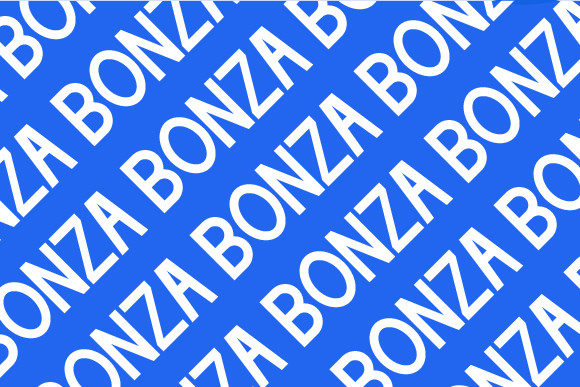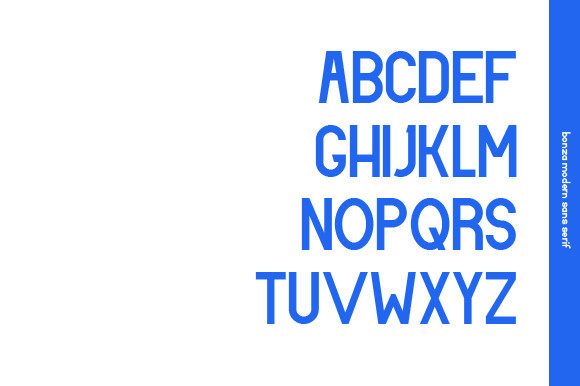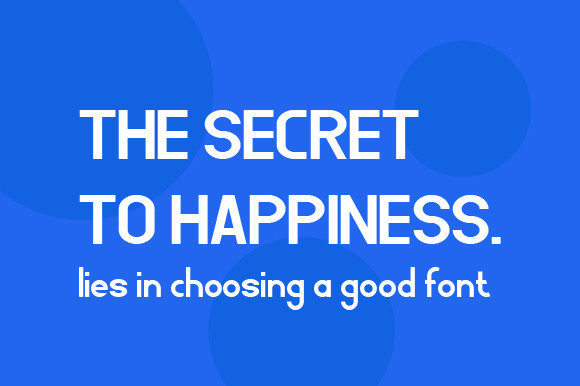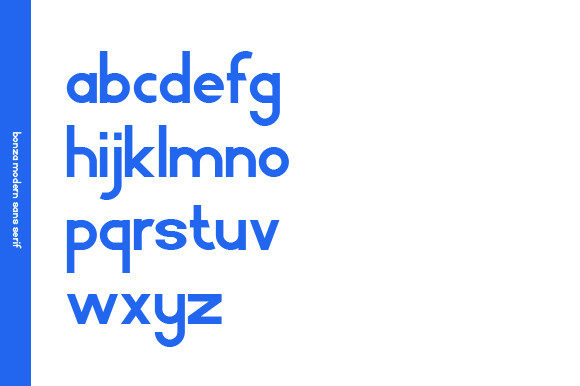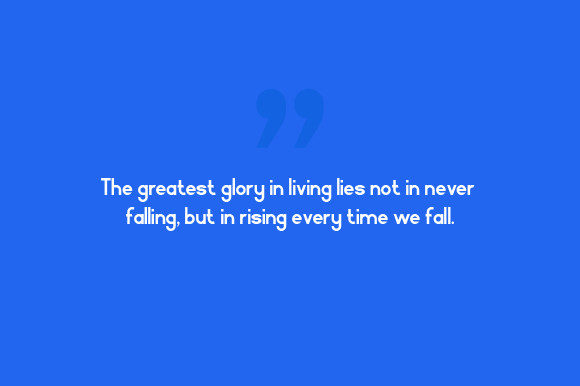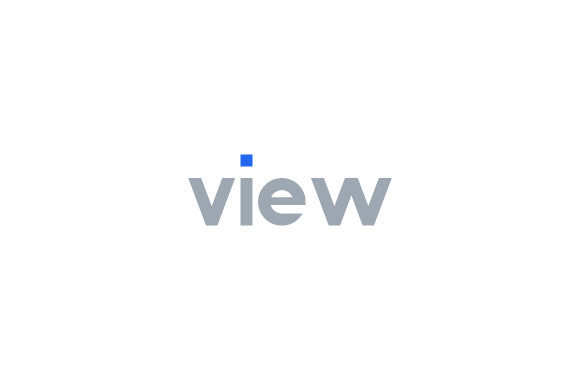
The Designer’s Delight: Unpacking the Bonza Font
I’ll never forget the time I was working on a branding project for a trendy new coffee shop. My client was specific about wanting a modern, clean look that would appeal to the young and hip. As I scrolled through font after font, nothing seemed quite right. That was until I stumbled upon Bonza – a minimal and neat sans serif font that instantly caught my eye. In this article, I’ll share my experience with Bonza, its features, and how you can make the most of it in your creative projects.
First Impressions: A Love Letter to Bonza
What I Love About Bonza
• ✨ Versatility: Bonza can easily be matched to an incredibly large set of projects, making it a fantastic addition to your font library.
• ✅ Legibility: The clean lines and sans serif design make it perfect for body text, headings, and even display text.
• 💡 Innovative Spirit: Bonza’s modern aesthetic is sure to give your designs a fresh and innovative feel.
While Bonza is an excellent font, there are a few things to keep in mind:
• 🤔 Limited Serif Options: As a sans serif font, Bonza might not be the best choice for projects requiring a traditional serif look.
• ⚠️ Overuse: Like any popular font, using Bonza excessively can make your design feel less unique.
The Story Behind Bonza
Bonza was designed with the modern creative in mind. Its designer aimed to create a font that was both clean and innovative, perfect for a wide range of projects. While the exact story behind Bonza might be unknown, its design reflects a passion for simplicity and elegance.
Is Bonza suitable for body text? Yes, Bonza’s clean design and good legibility make it suitable for body text.
Does Bonza support OpenType features? Yes, Bonza supports OpenType features like ligatures and stylistic alternates.
Bonza is a versatile and modern sans serif font that’s perfect for a wide range of creative projects. Its clean design, legibility, and innovative spirit make it a great addition to any designer’s font library. By understanding its features and limitations, you can make the most of Bonza and take your designs to the next level.